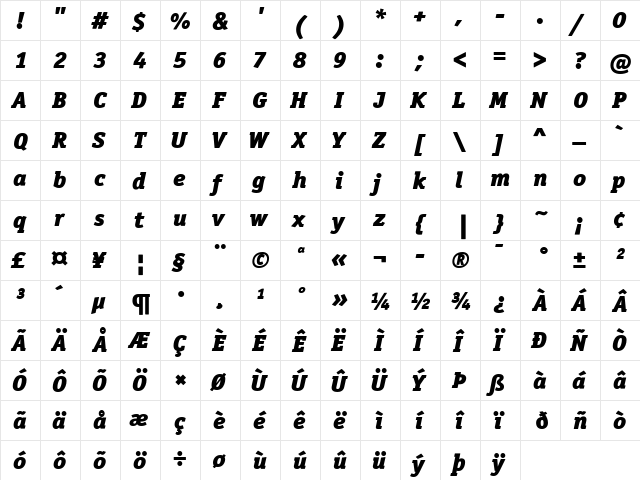
OfficinaSerITC Black Italic Font Preview
OfficinaSerITC Black Italic
OfficinaSerITC Black Italic Font Details
| Style | Black Italic |
| Foundry | \ International Typeface Corporation and by Erik Spiekermann, Ole Schaefer |
Design Context for OfficinaSerITC Typeface
OfficinaSerITC offers clean, dependable letterforms without strong stylistic allegiance, making it a practical choice for designers who need flexibility. The slanted form adds forward momentum and visual energy.